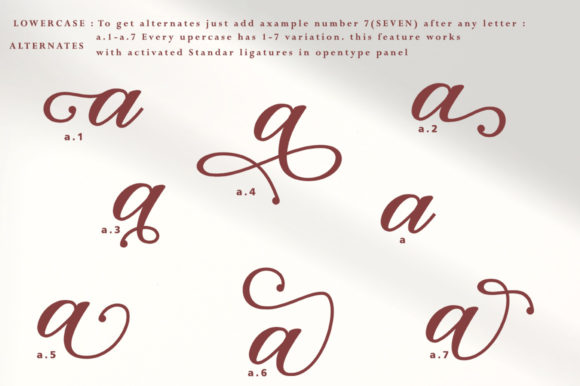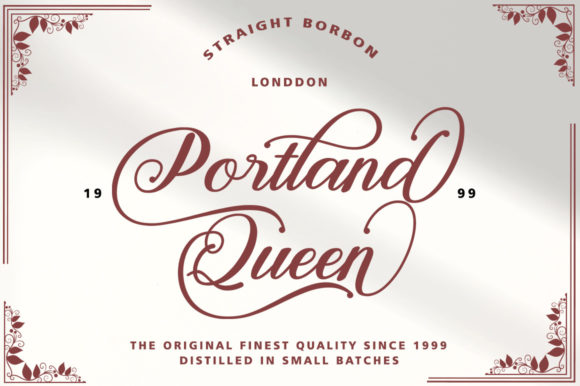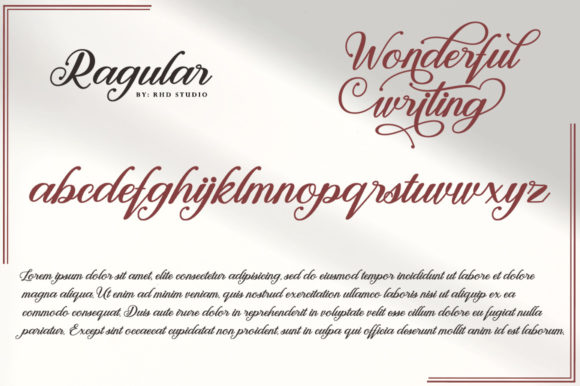
Wonderful Writing feels equally charming and elegant. It looks stunning on wedding invitations, thank you cards, quotes, greeting cards, logos, business cards and every other design which needs a customized touch.
Wonderful Writing Font